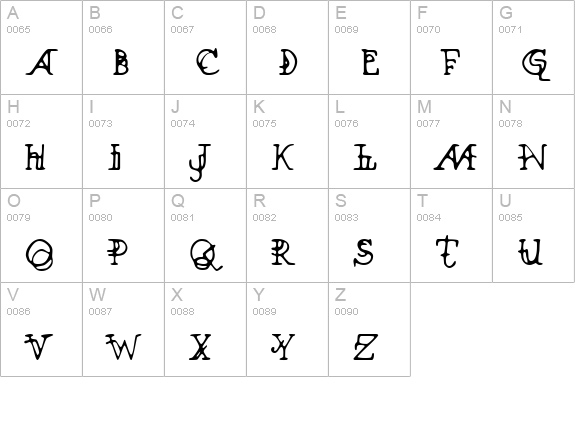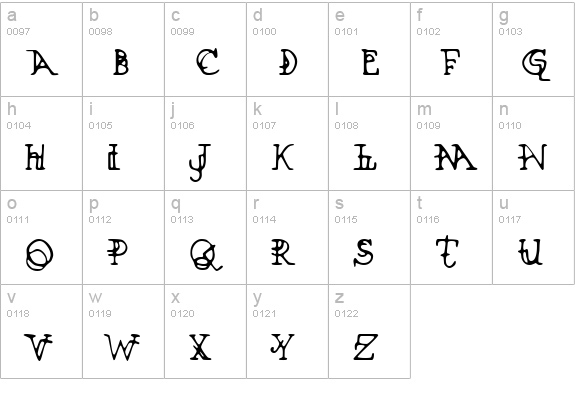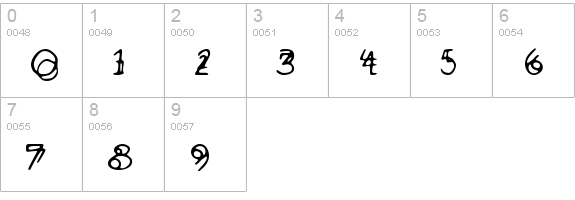
Xenowort Font Details
Xenowort font is a modern and stylish typeface that exudes creativity and sophistication. Its sleek lines and elegant curves make it perfect for a wide range of design projects, from branding to editorial design. With its unique character and versatility, Xenowort font is sure to make your text stand out and leave a lasting impression. The best part? Xenowort font is completely free to download at FontsMarket.com. So whether you're a professional designer looking for a fresh new font to add to your collection or just someone who loves experimenting with different typefaces, Xenowort font is the perfect choice. Don't miss out on this fantastic opportunity to elevate your designs with this stunning font. Download Xenowort font today and let your creativity soar!